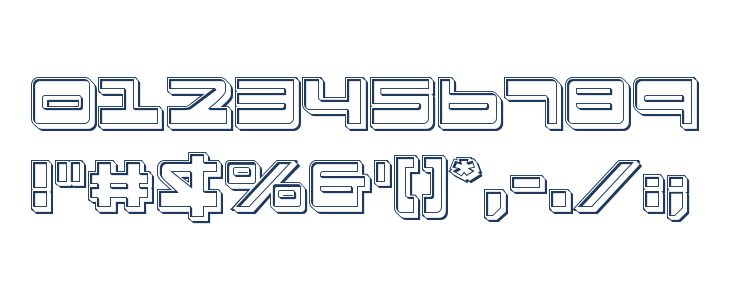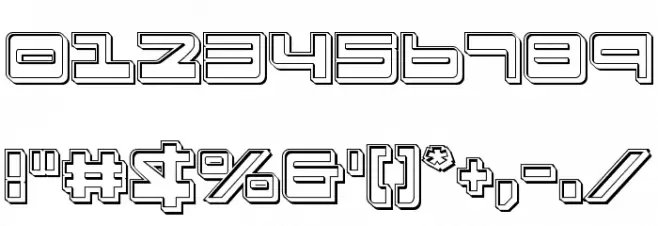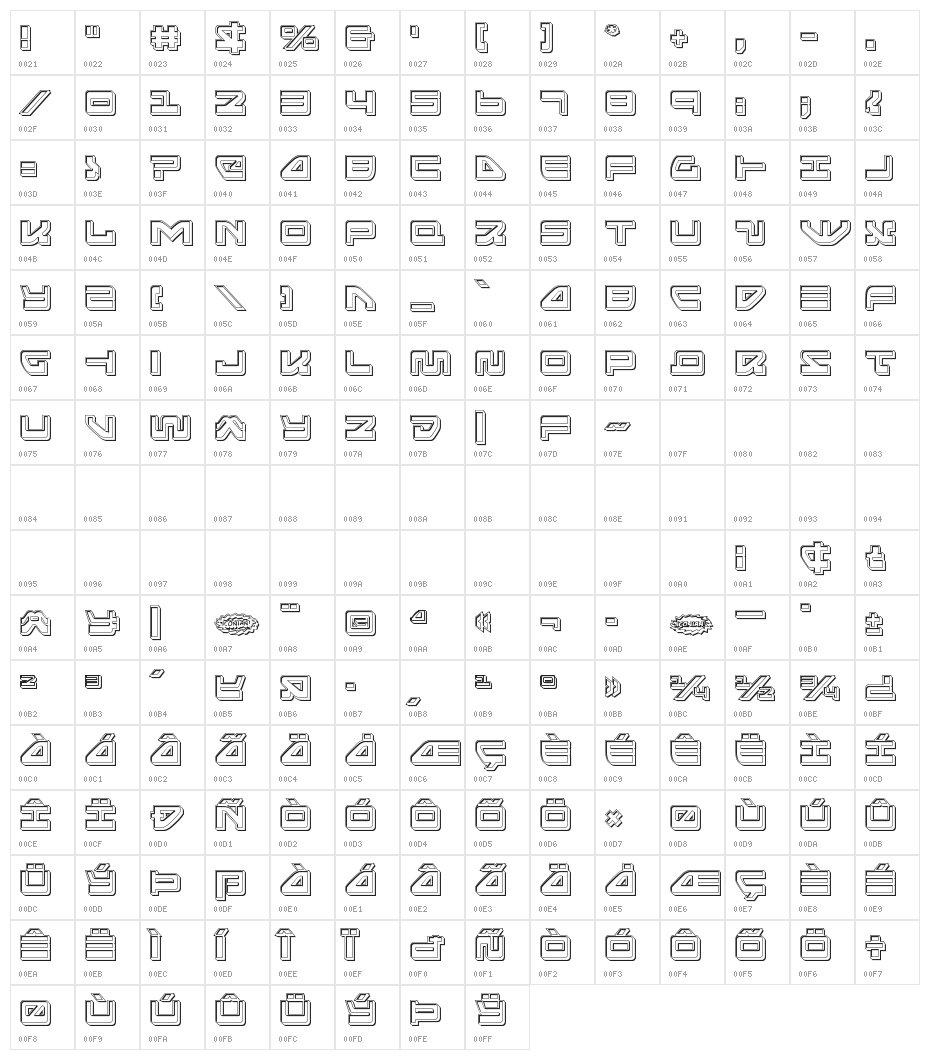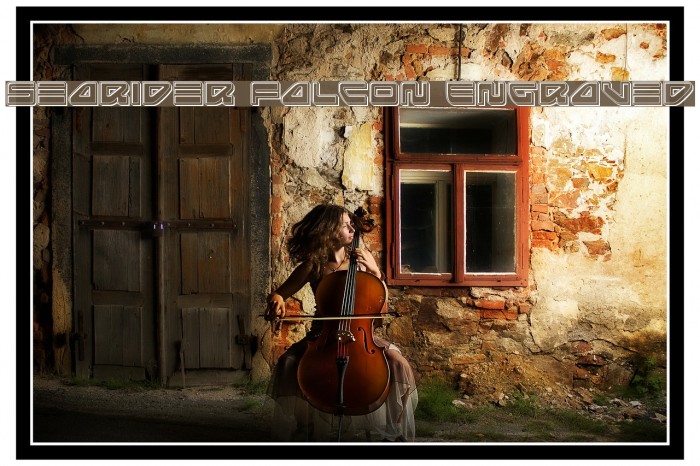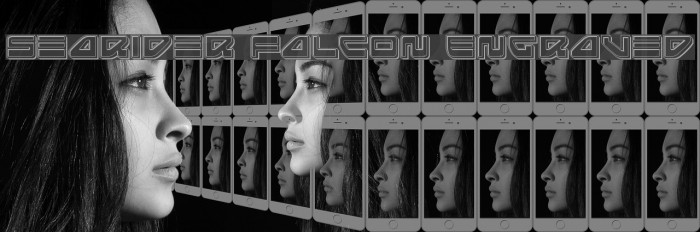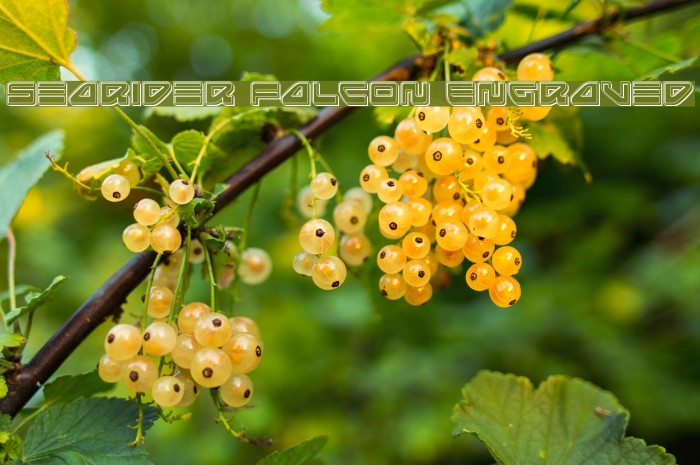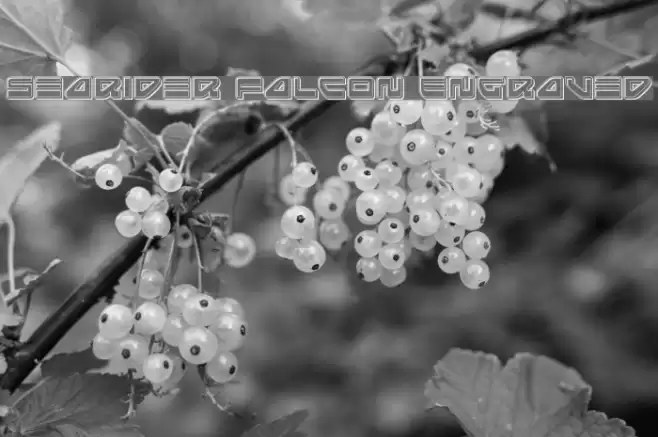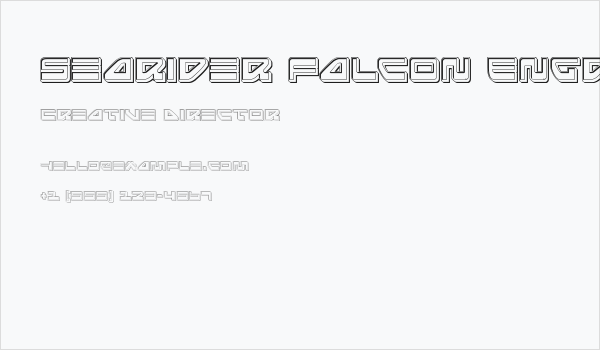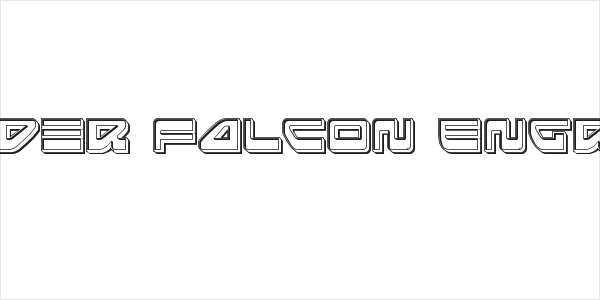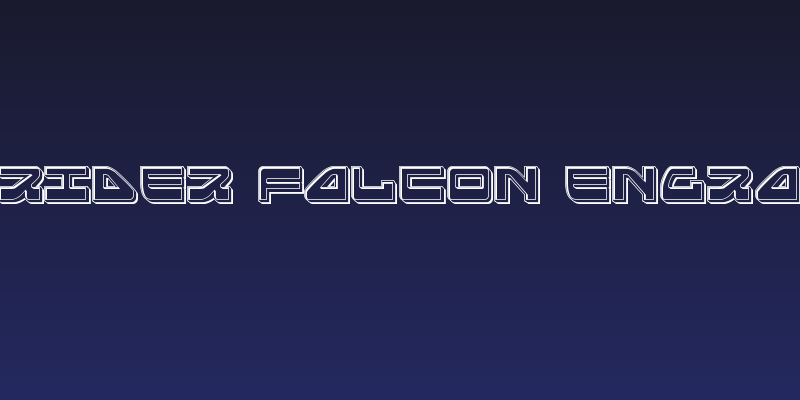
Searider Falcon Engraved Font
Searider Falcon Engraved Description
This font features a bold, futuristic design with a distinct engraved style. The characters are outlined with a double line, creating a three-dimensional effect. The geometric shapes and sharp angles give it a modern and tech-inspired appearance. Each letter and number is crafted with precision, maintaining a consistent width throughout. The special characters complement the overall aesthetic, enhancing its versatility for various design projects.
Overall StyleFuturistic
Proposed ProjectsIdeal for sci-fi themed designs, technology branding, video game titles, and futuristic posters.